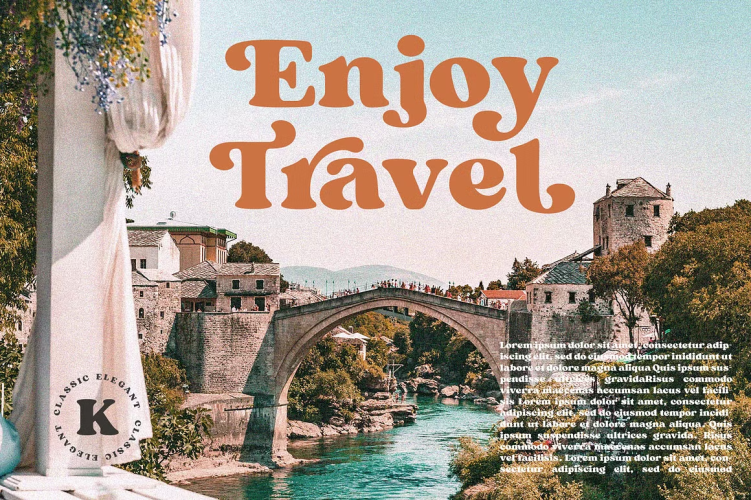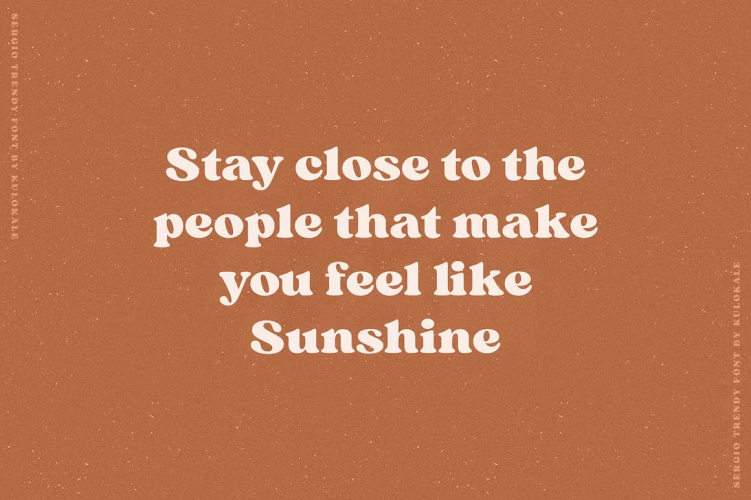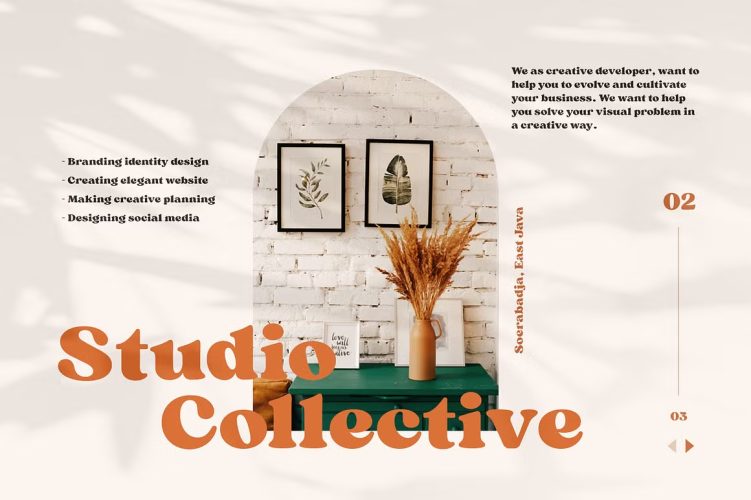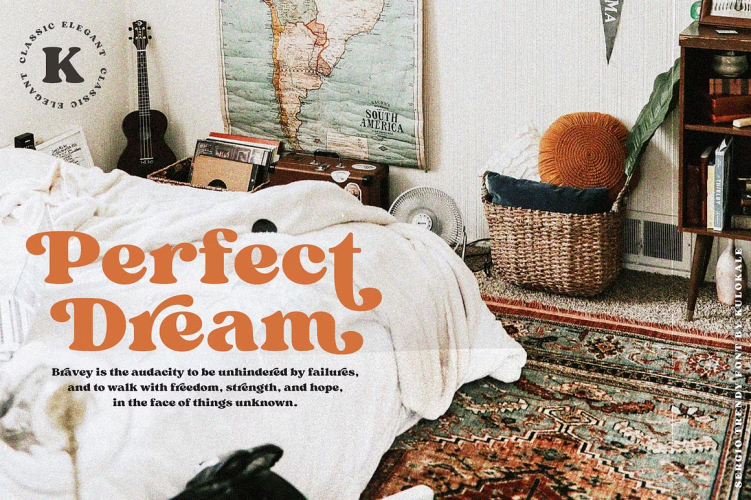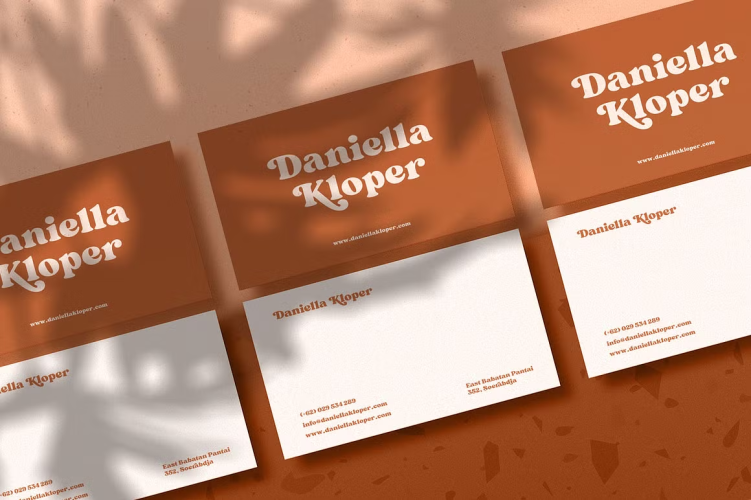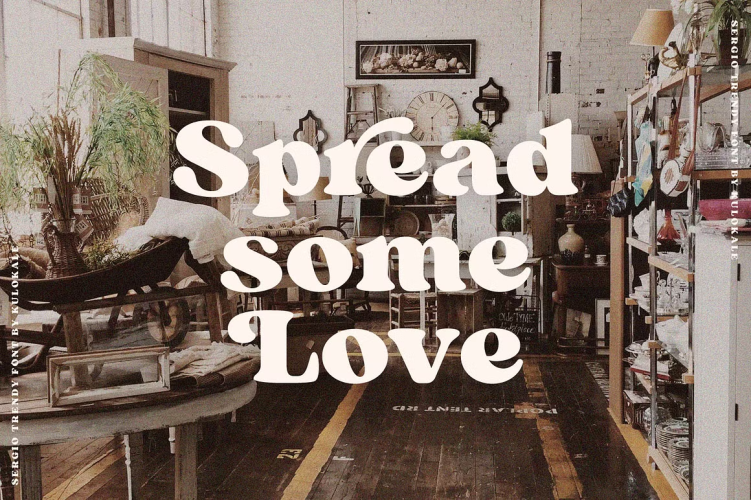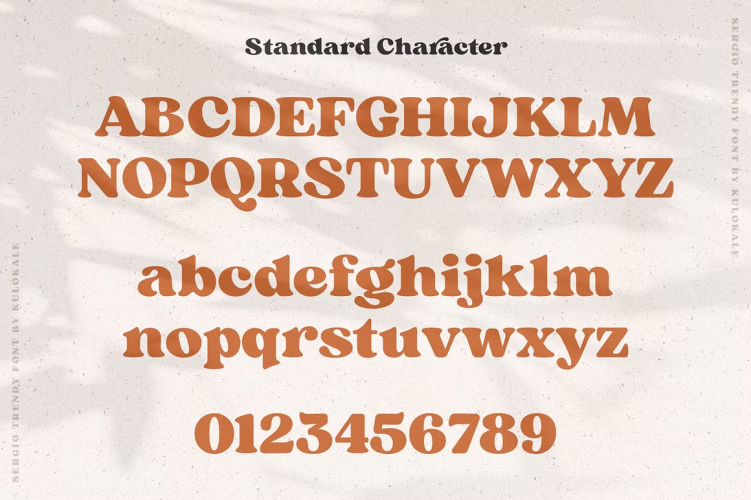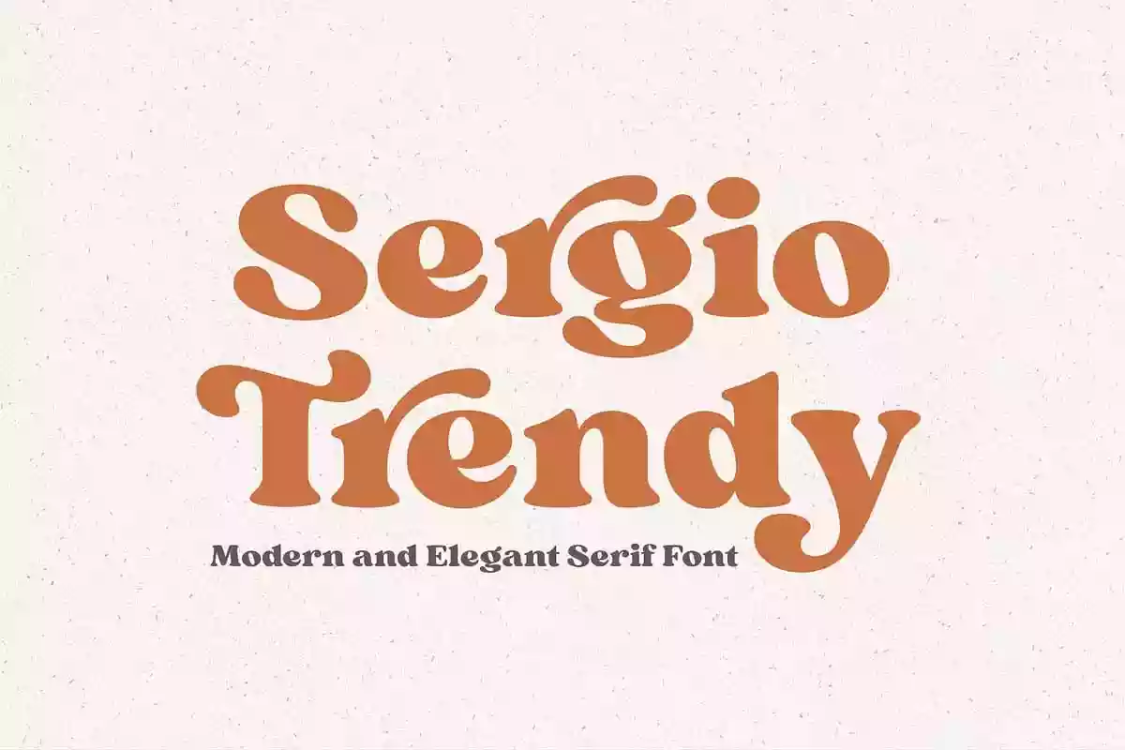
Sergio Trendy Font
Sergio Trendy is a contemporary serif font of excellent quality and style crafted to project modern elegance. Its clean shapes and graceful characters allow it to be used for multiple design purposes, including advertising, branding, packaging, titles, headlines, and editorial spreads.
Sergio Trendy’s versatility makes it seamlessly function in various projects, including corporate branding and vibrant marketing campaigns. Whether used for print media or digital advertising, this font not only adds a note of class and professionalism but also instantly enhances the visual impact of the design.
Sergio Trendy offers designers this versatility and style attributes to challenge the norms and stay relevant. Whether as the brands of world-renowned fashion houses or the content of magazines emphasizing modern and innovative living, the Sergio Trendy logo symbolises elegance and luxury. Its charm mesmerizes shoppers, who are stimulated and hence nurture a longing for the presented brands.
Where Sergio Trendy Font works best
Sergio Trendy Font gives long-form text a classic, trustworthy rhythm — ideal for magazine spreads, annual reports and book interiors.
Pair Sergio Trendy Font with generous letter-spacing for wordmarks in fashion, hospitality, wine and jewellery branding.
Use Sergio Trendy Font for slide titles in Keynote, PowerPoint or Google Slides to add authority without looking dated.
What is Sergio Trendy Font good for?